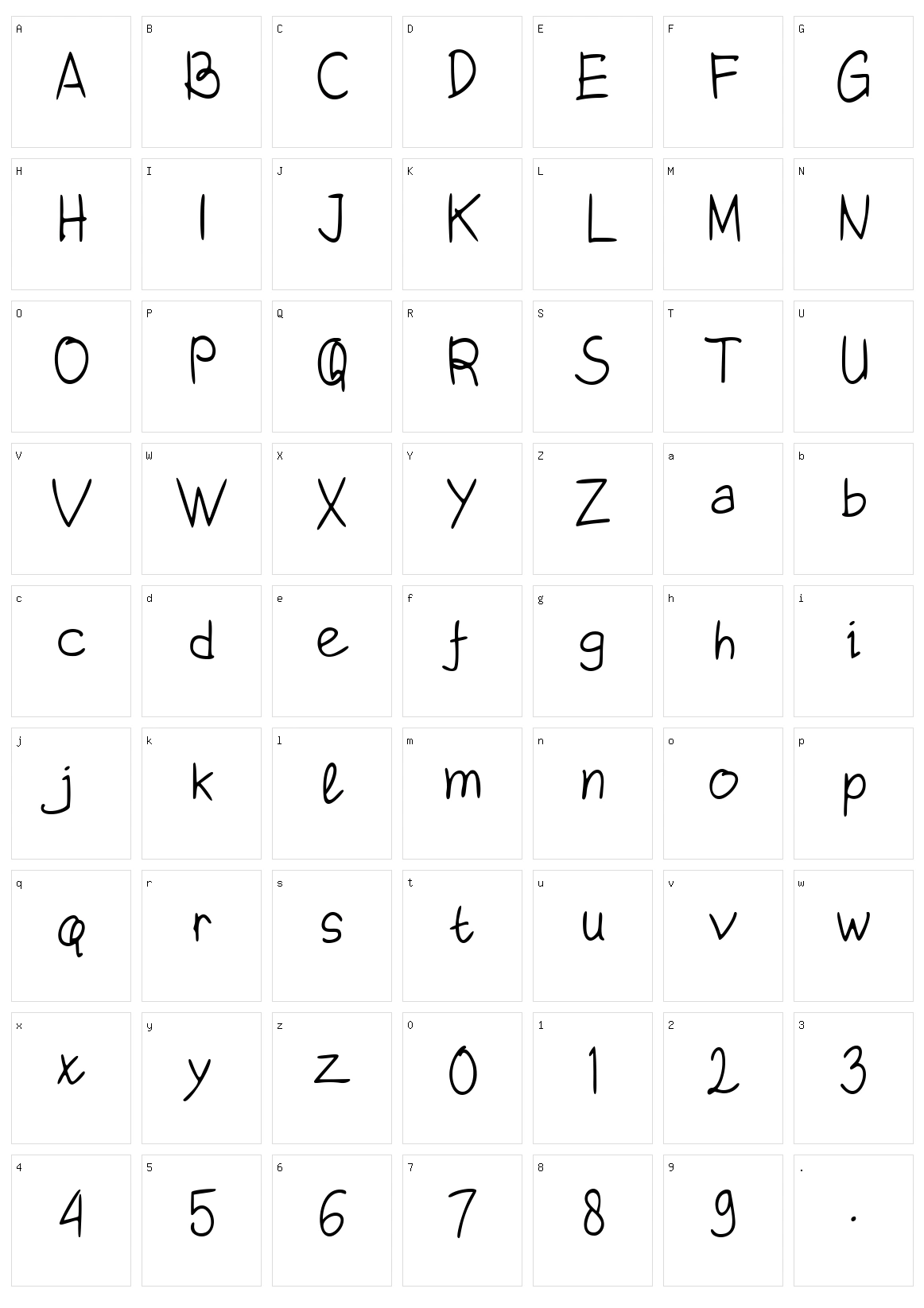
The free font Santosa Handwriting Sample is carefully designed by Lulu Imanda, showcasing a thoughtful balance of creativity and usability and falls under the Script font style. When you download the ZIP file, it contains only 20.01 KB of font files, making it lightweight and quick to download. Please review the license details below to understand permitted usage and distribution rights. If license information is not available, we recommend using this font for personal projects only or contacting the author directly for commercial usage permissions.